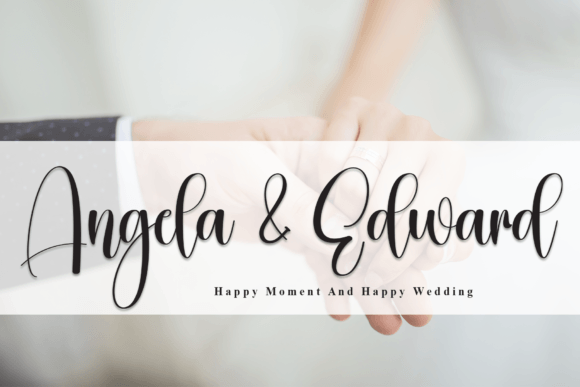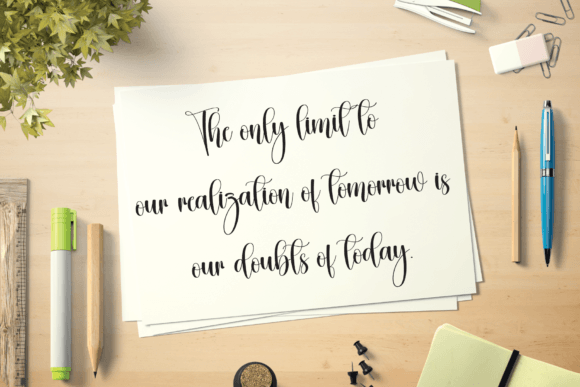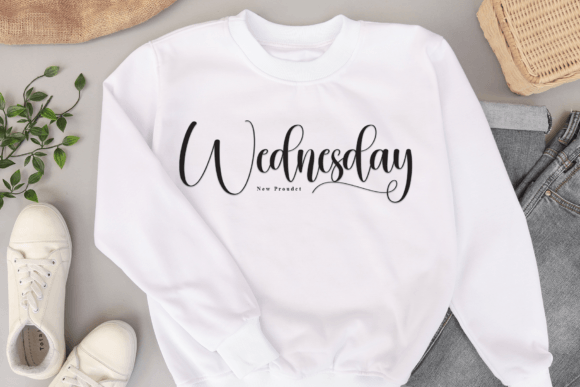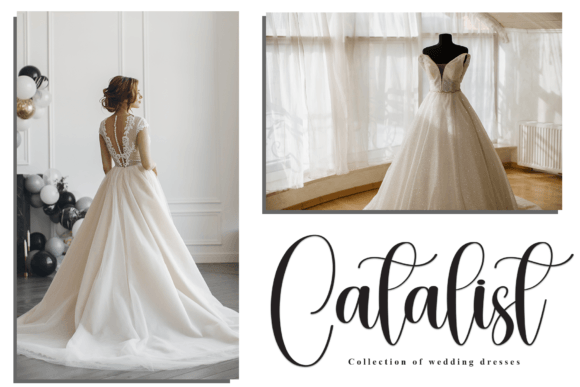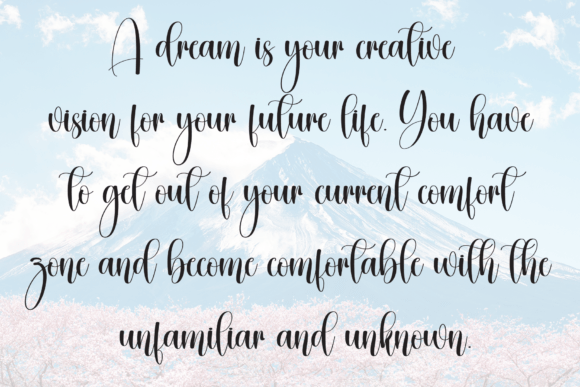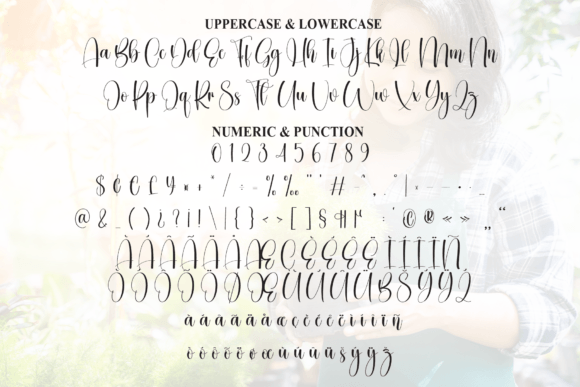
Gardening Font: The Perfect Choice for Nature-Inspired Designs
Are you a designer or crafter looking for a font that captures the essence of nature and gardening? Look no further than the Gardening Font! This charming handwritten font has a friendly and natural look that’s perfect for creating beautiful and inviting designs. In this article, we’ll explore the features and benefits of the Gardening Font, and show you how to use it to create stunning designs that will leave a lasting impression.
What is Gardening Font?
Gardening Font is a unique and elegant handwritten font that has a personal touch. Its flowing letters are carefully crafted to give it a natural and effortless look, making it perfect for designs related to gardening, nature, and the outdoors. The font is highly legible and versatile, making it suitable for a wide range of design applications, from invitations and quotes to posters and social media graphics.
Key Features of Gardening Font
- Handwritten look: Gardening Font has a charming handwritten look that’s perfect for creating personal and inviting designs.
- Flowing letters: The font’s flowing letters give it a natural and effortless look that’s reminiscent of handwritten writing.
- Highly legible: Despite its handwritten look, Gardening Font is highly legible and easy to read, making it perfect for body text and headings.
- Versatile: The font is highly versatile and can be used for a wide range of design applications, from digital designs to print materials.
Benefits of Using Gardening Font
So why choose Gardening Font for your designs? Here are just a few benefits of using this beautiful font:
- Evokes a sense of nature: Gardening Font is perfect for designs that require a natural and earthy feel. Its flowing letters and handwritten look evoke a sense of nature and the outdoors, making it perfect for gardening and nature-inspired designs.
- Adds a personal touch: The font’s handwritten look adds a personal touch to your designs, making them more inviting and engaging.
- Improves readability: Despite its decorative look, Gardening Font is highly legible and easy to read, making it perfect for body text and headings.
- Versatile: The font is highly versatile and can be used for a wide range of design applications, from digital designs to print materials.
Using Gardening Font in Your Designs
So how can you use Gardening Font in your designs? Here are a few ideas to get you started:
- Invitations: Use Gardening Font to create beautiful and inviting invitations for weddings, garden parties, and other outdoor events.
- Quotes and posters: The font is perfect for creating inspiring quotes and posters that celebrate nature and the outdoors.
- Gardening blogs and websites: Use Gardening Font to create a natural and inviting look for your gardening blog or website.
- Social media graphics: The font is perfect for creating eye-catching social media graphics that celebrate nature and the outdoors.
Tips for Getting the Most Out of Gardening Font
Here are a few tips for getting the most out of Gardening Font:
- Use it with natural imagery: Pair Gardening Font with natural imagery, such as photos of flowers, trees, and other outdoor elements, to create a cohesive and inviting look.
- Experiment with colors: The font looks great in a range of colors, from earthy tones like green and brown to bright and bold colors like pink and yellow.
- Mix it with other fonts: Consider mixing Gardening Font with other fonts to create a unique and eye-catching look.
Gardening Font is a beautiful and versatile font that’s perfect for designers and crafters who want to create stunning nature-inspired designs. Its charming handwritten look, flowing letters, and highly legible design make it perfect for a wide range of design applications, from invitations and quotes to posters and social media graphics. With its natural and effortless look, Gardening Font is sure to add a touch of elegance and sophistication to your designs.